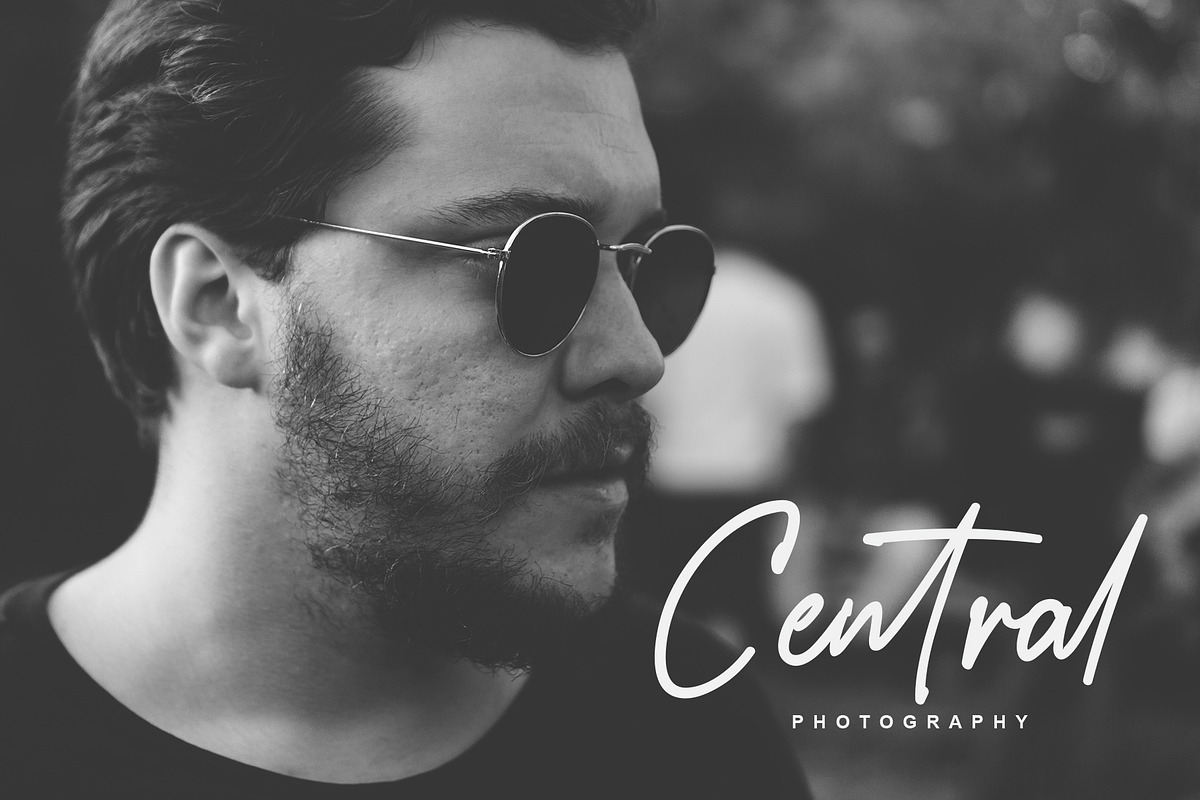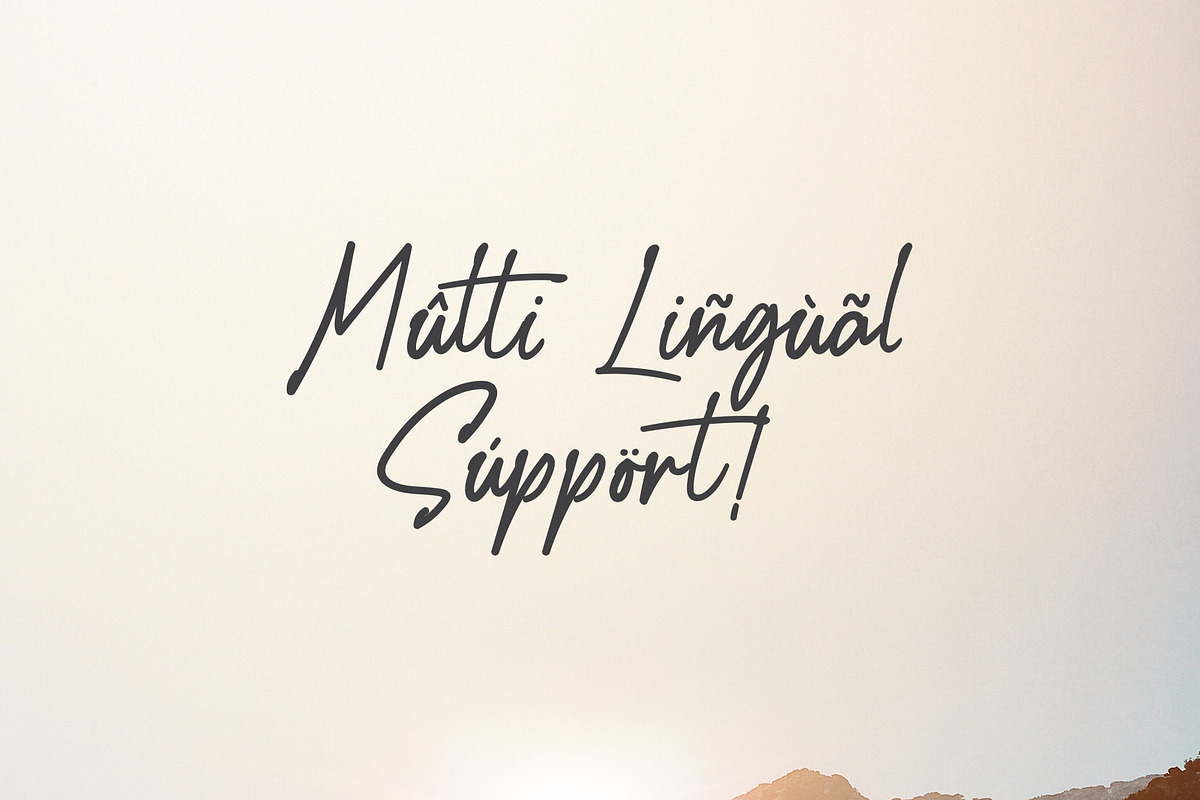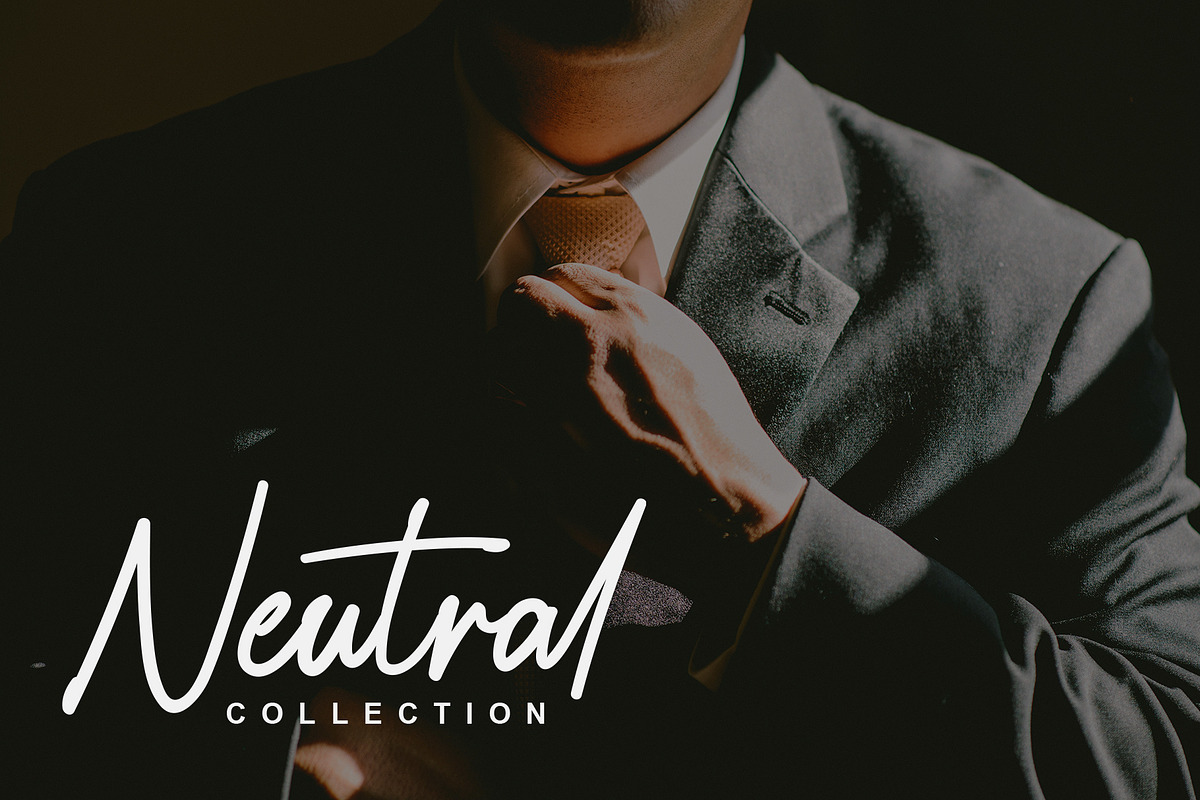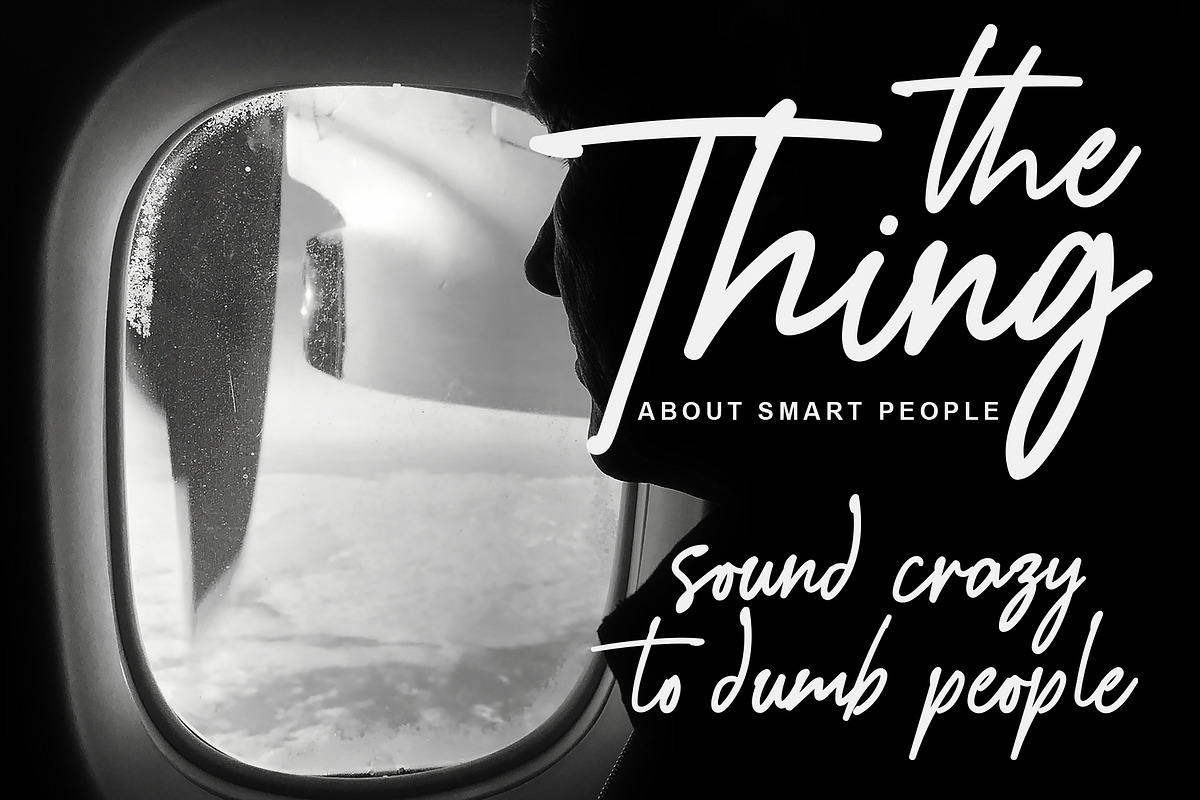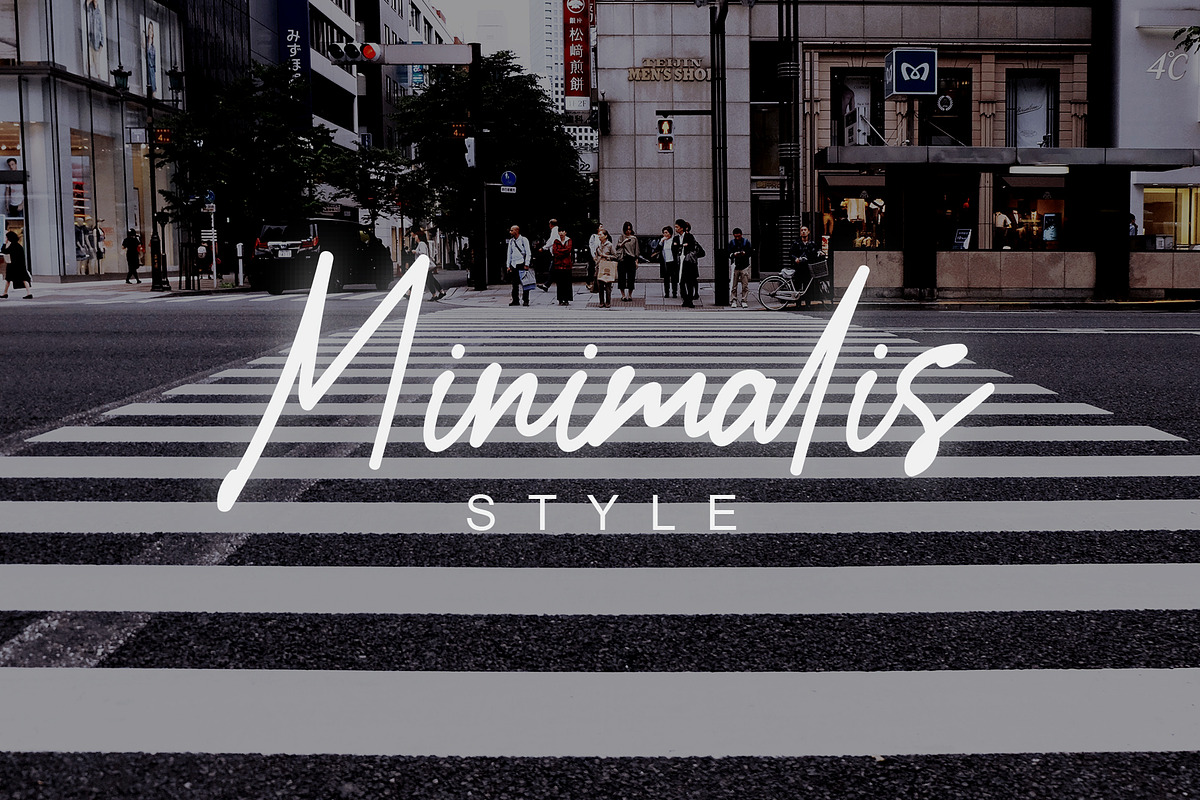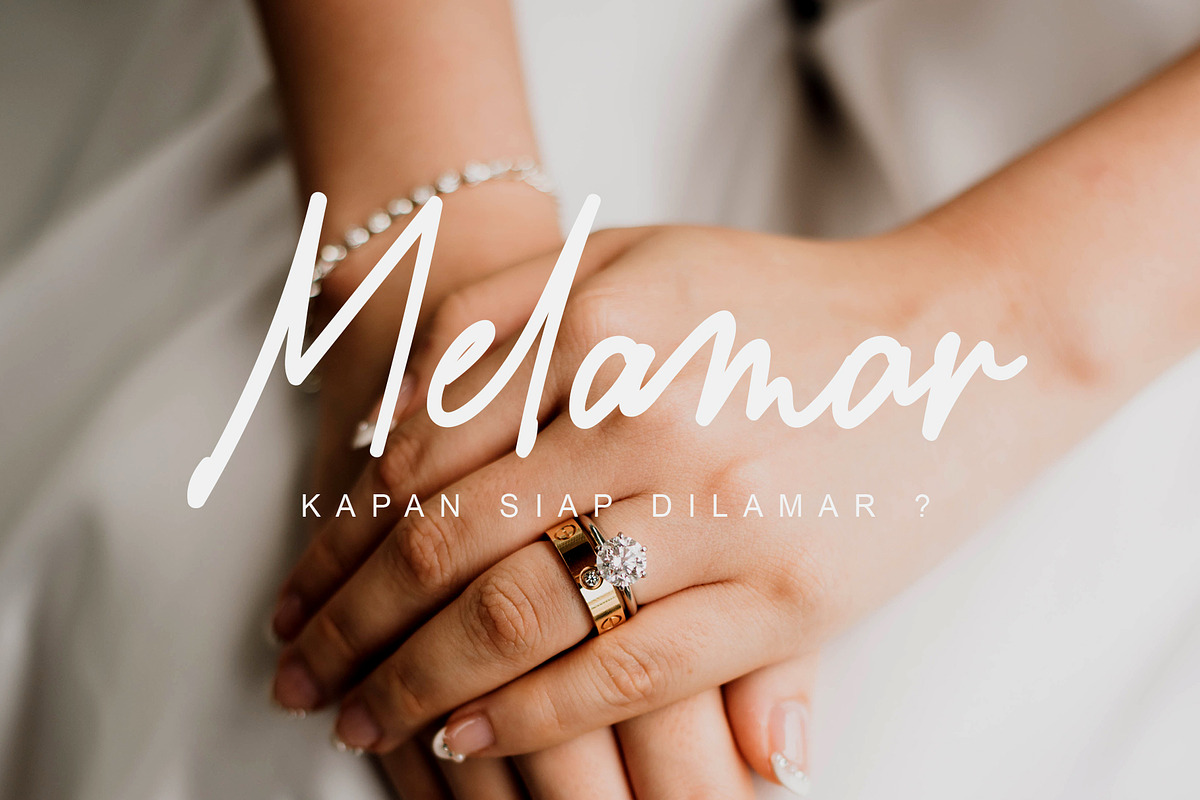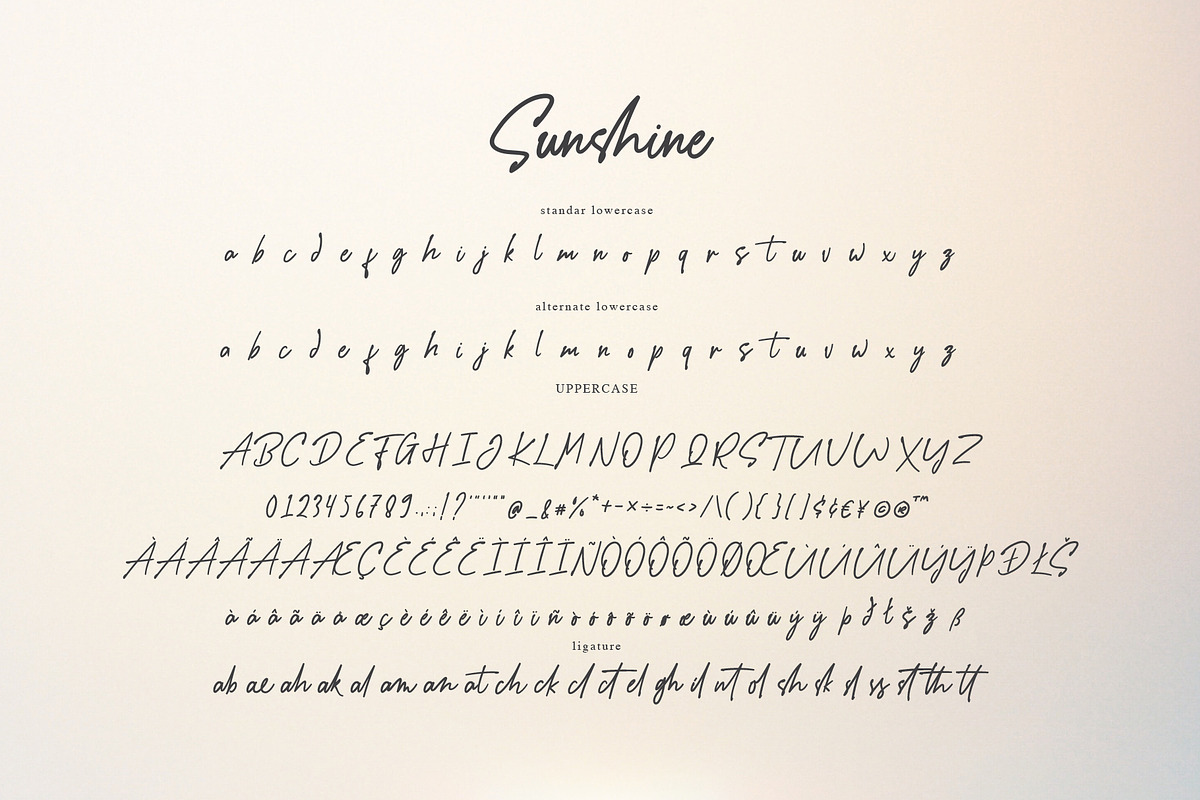
Sunshine - a Handwritten Font
Sunshine - a Handwritten Font is a handwritten script font with a simple and classy style, this font is great for your next creative projects such as watermark on photography, signature or signature logo design, quotes, album cover, business card, and many other design project. From business cards to photo watermarks, Sunshine is here to elevate your work to the highest level.
Sunshine comes with uppercase letters, lowercase alternative letters, numbers, punctuation, ligature and multi lingual support